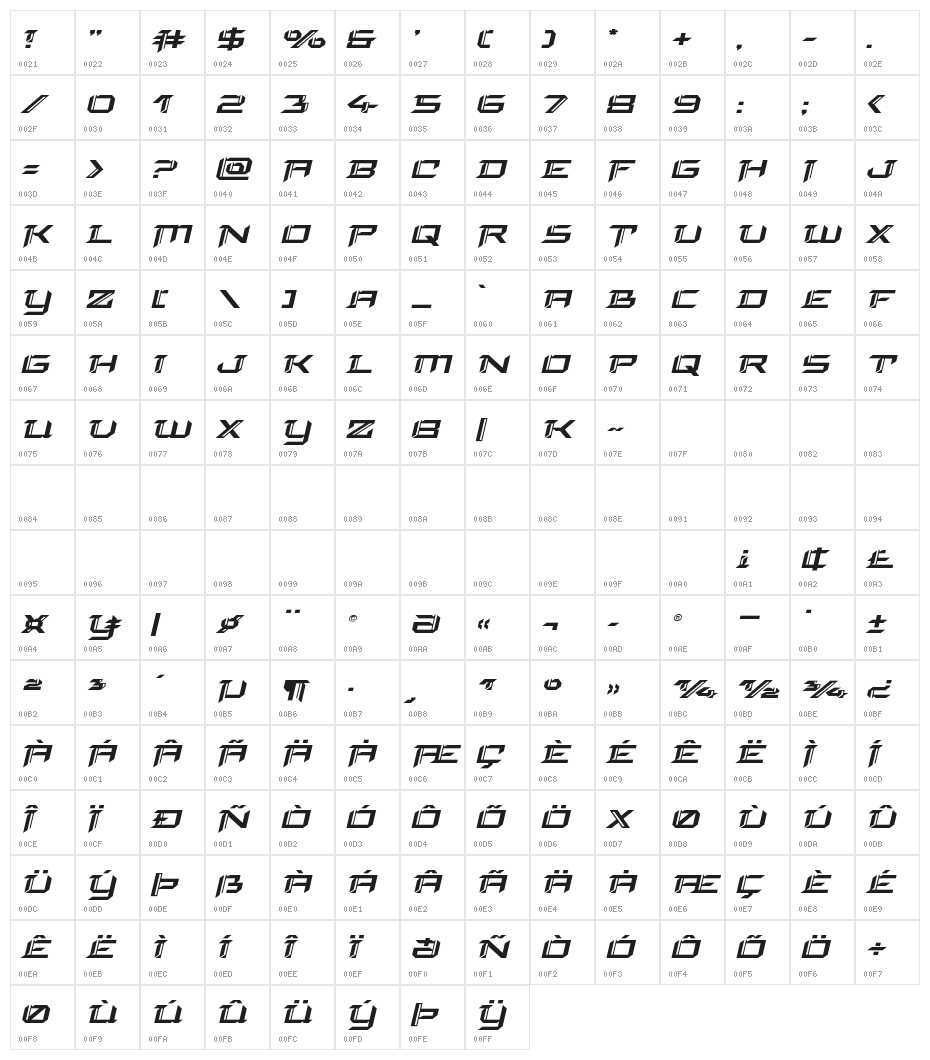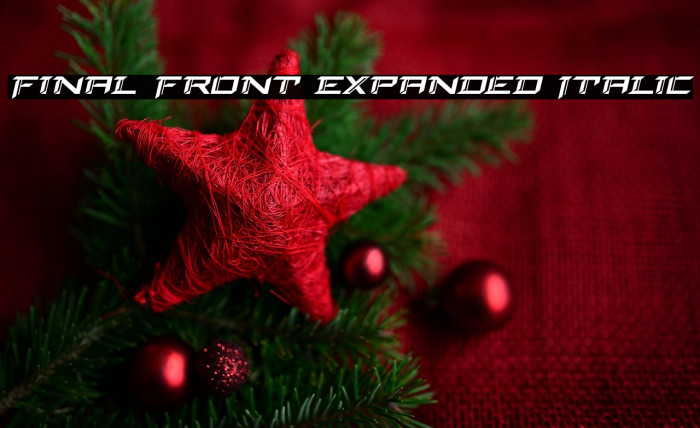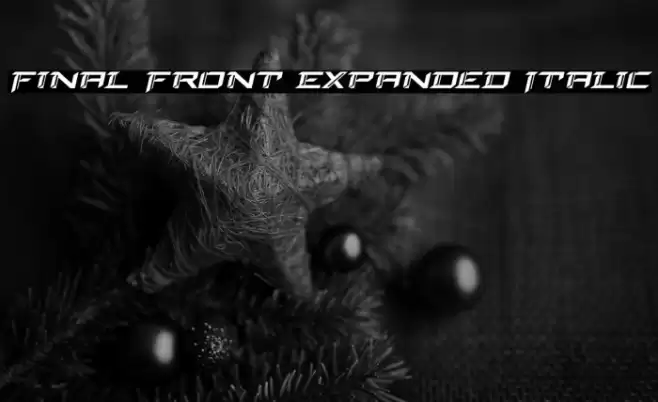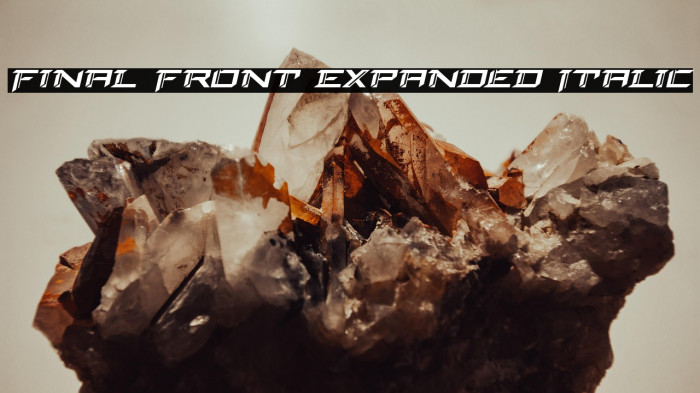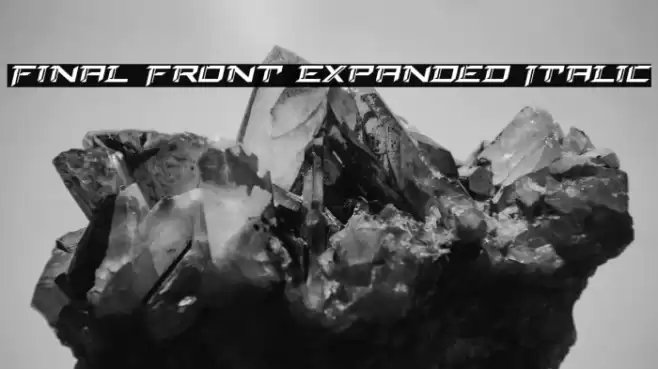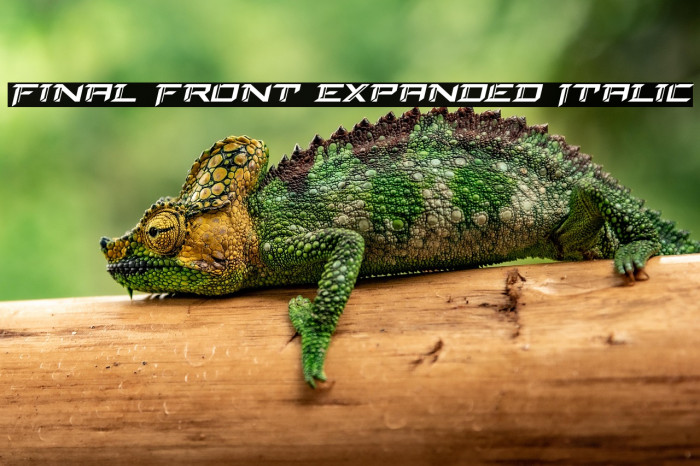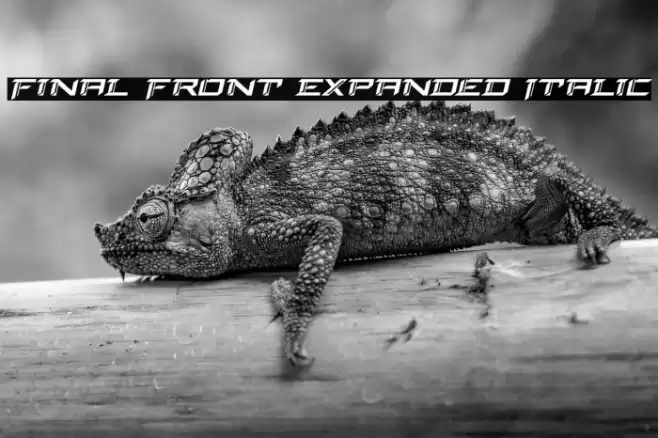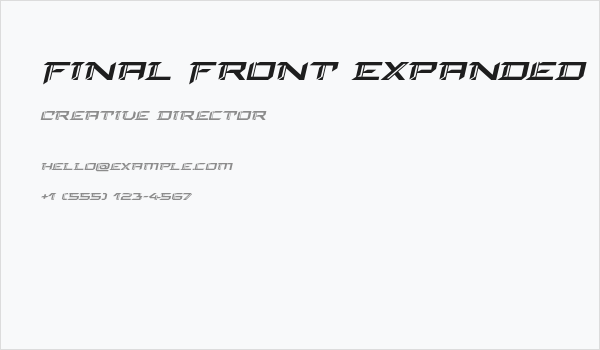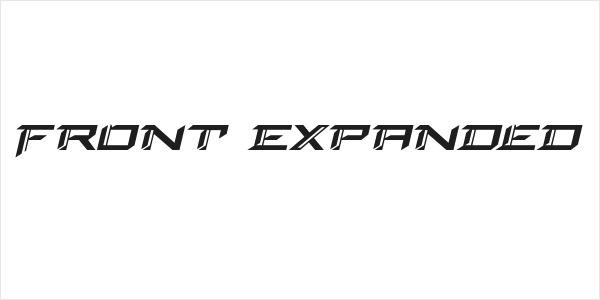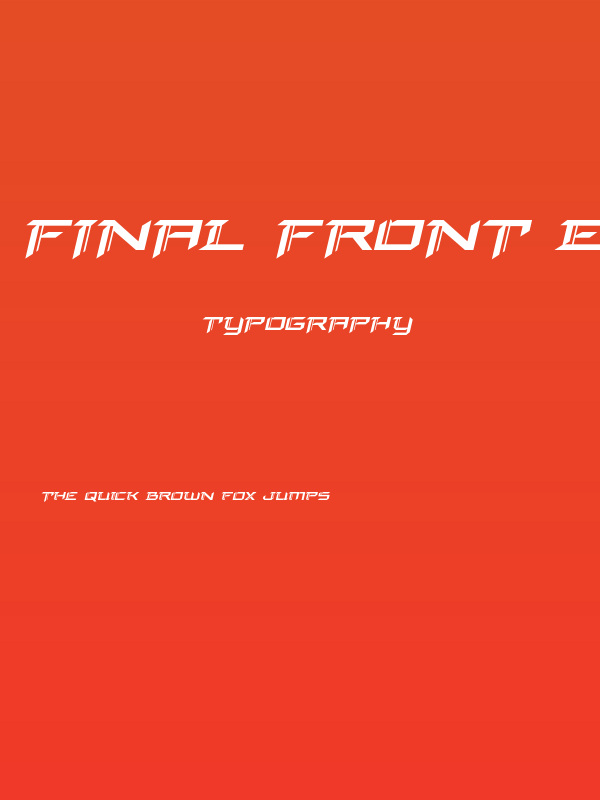
Final Front Expanded Italic Font
Final Front Expanded Italic Description
This font features a bold and dynamic design with an italicized, expanded style. The characters are sharply angular, giving a futuristic and edgy appearance. The uppercase and lowercase letters maintain a consistent style, with a distinct slant that enhances the italic effect. The numbers and special characters are crafted with the same angular precision, ensuring uniformity across all glyphs. The font's expanded width allows for a strong visual impact, making it suitable for attention-grabbing designs. Its high contrast in stroke thickness adds to the boldness, while the character spacing is relatively tight, contributing to its compact and cohesive look.